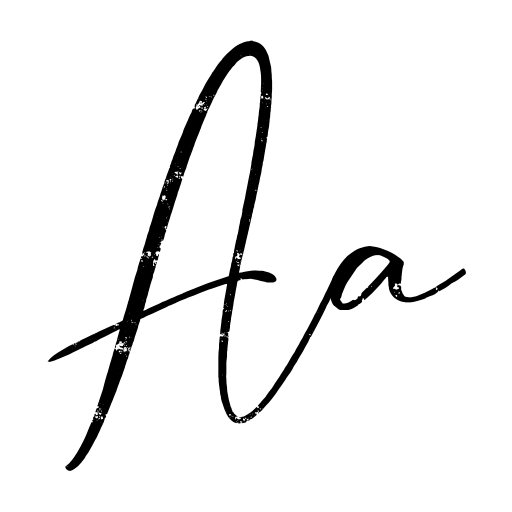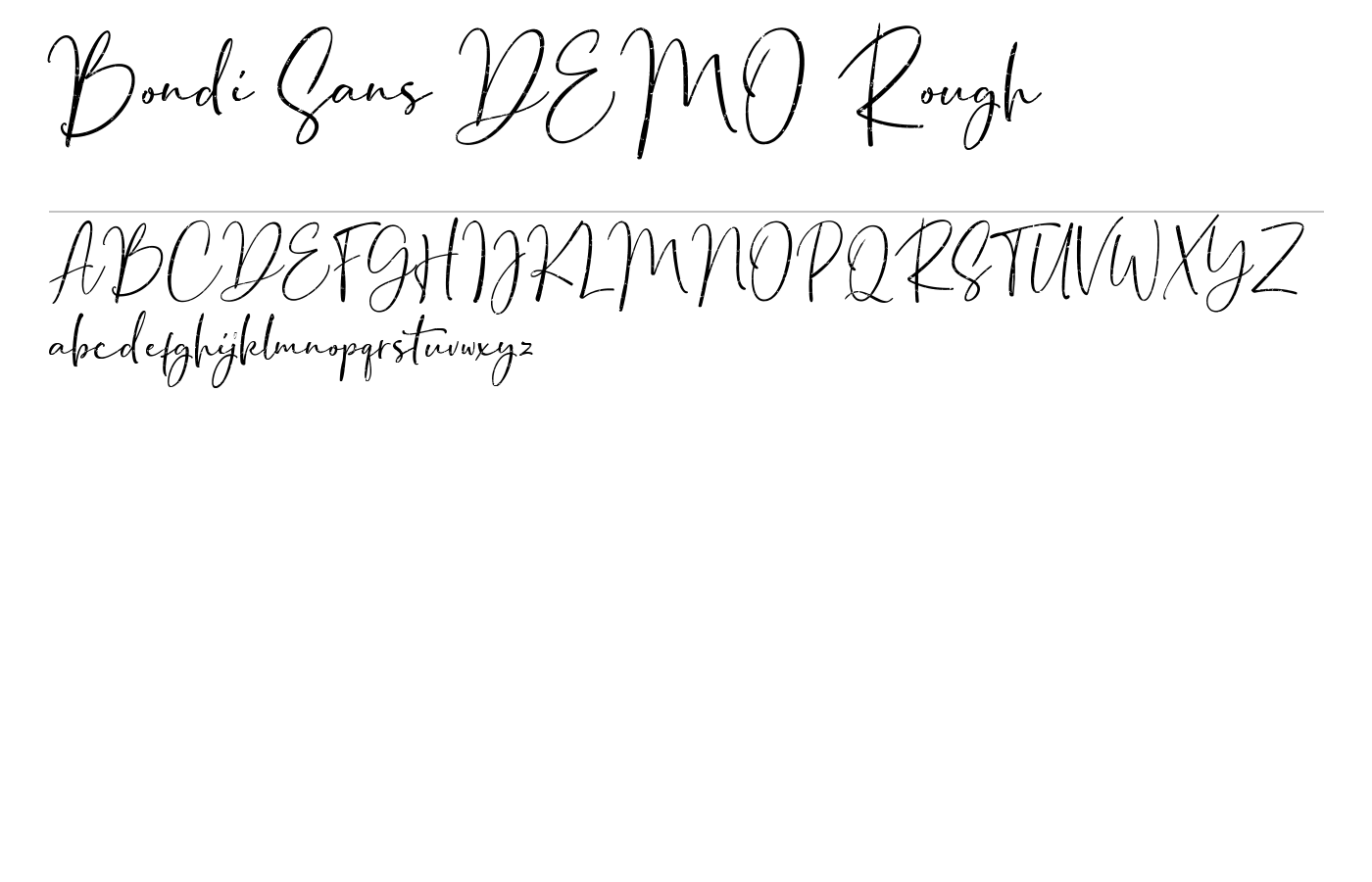
Bondi Sans DEMO Rough is a stylish, hand-drawn script font that combines casual elegance with a slightly textured, rough finish. Its thin, flowing strokes and dynamic letterforms offer a personal, artistic feel, making it perfect for creative branding, invitations, and modern lifestyle designs that seek a warm, approachable vibe. This font works especially well where a touch of handcrafted charm and sophistication is desired.
Bondi Sans DEMO Rough Font
About Bondi Sans DEMO Rough Font